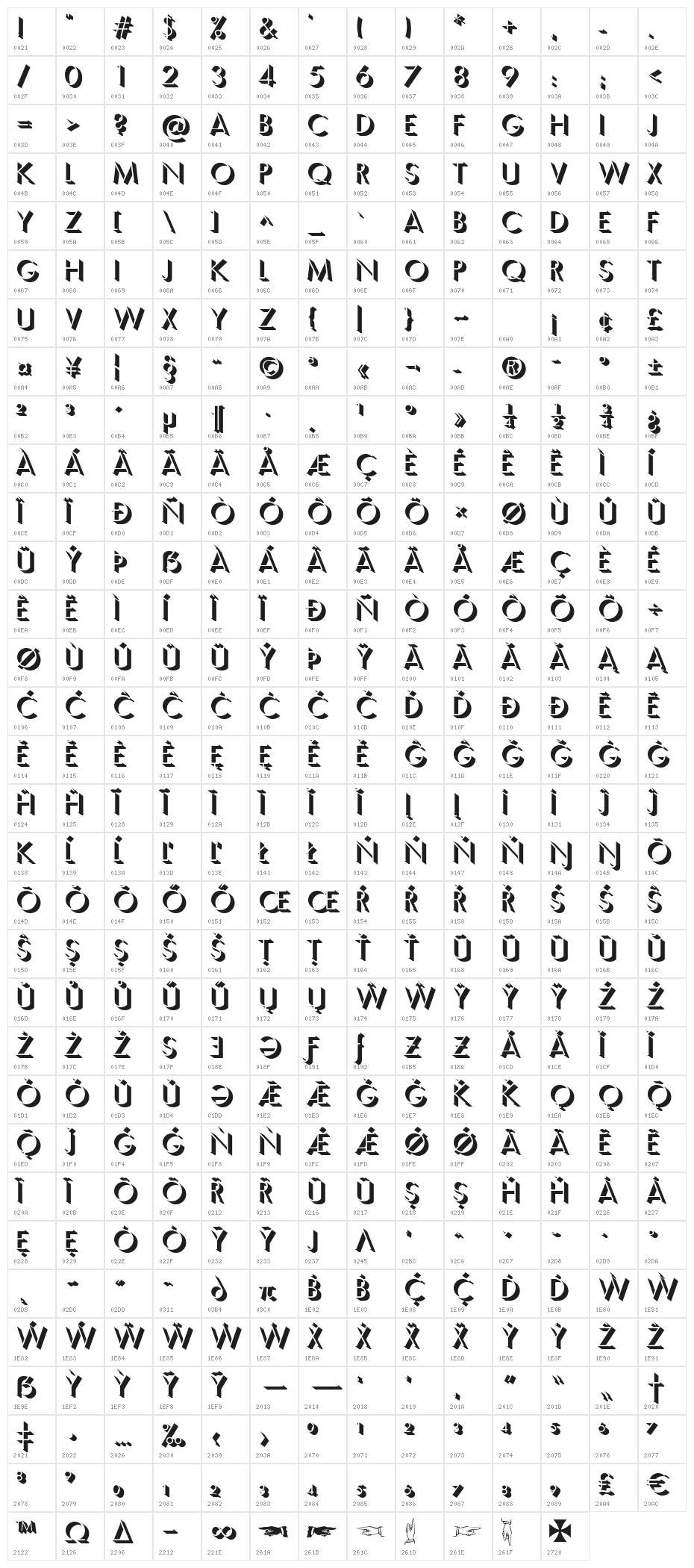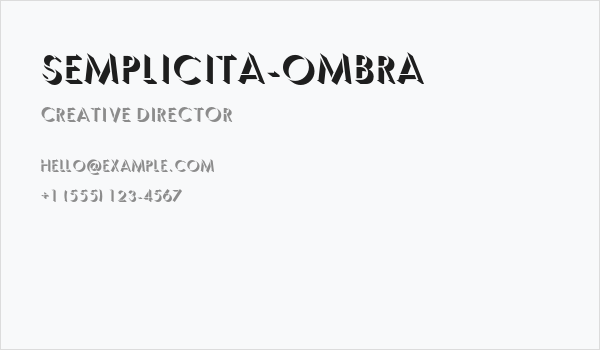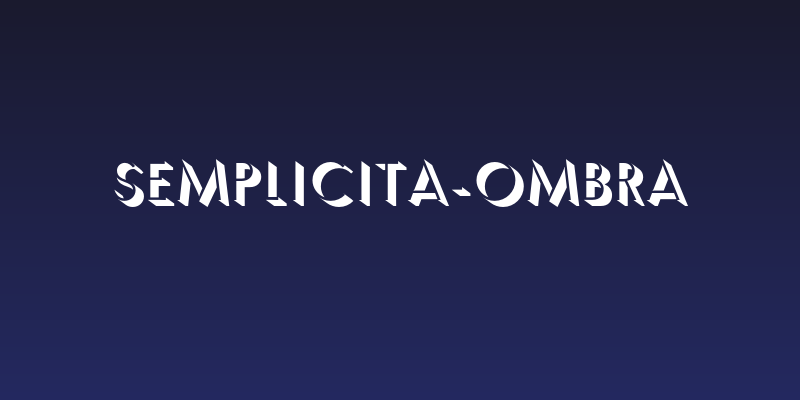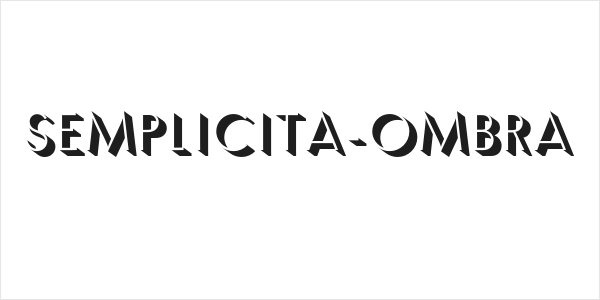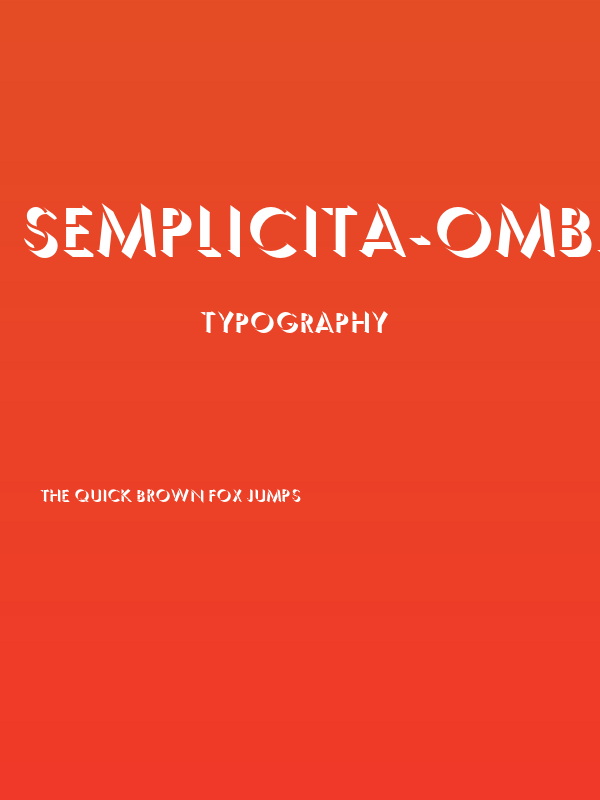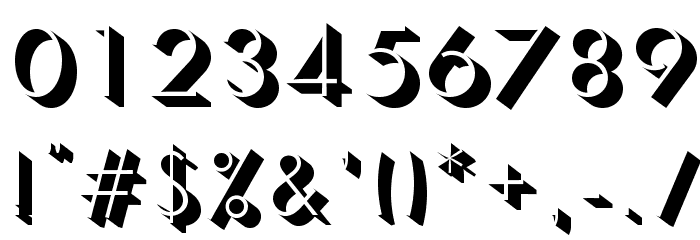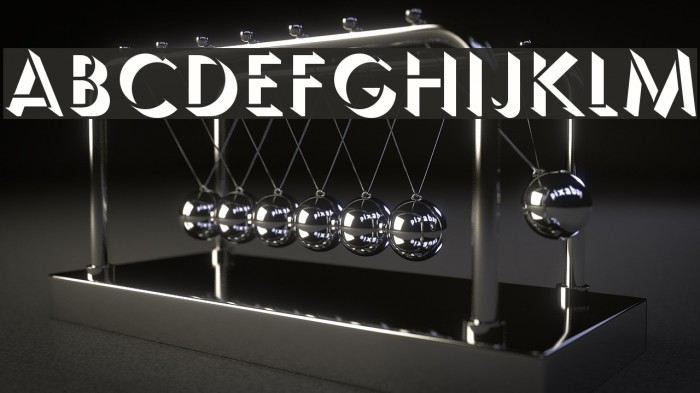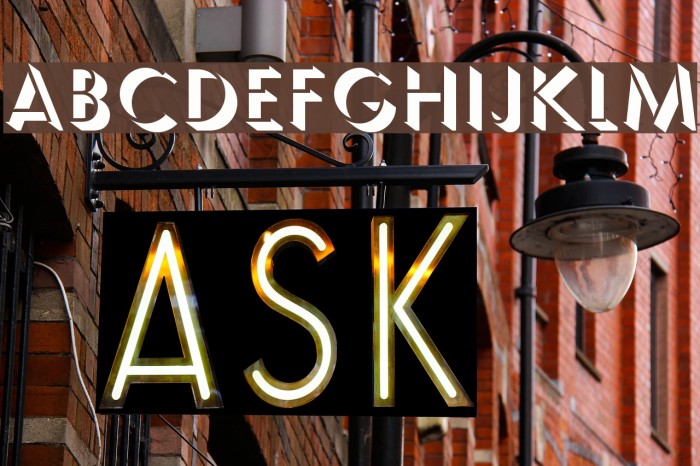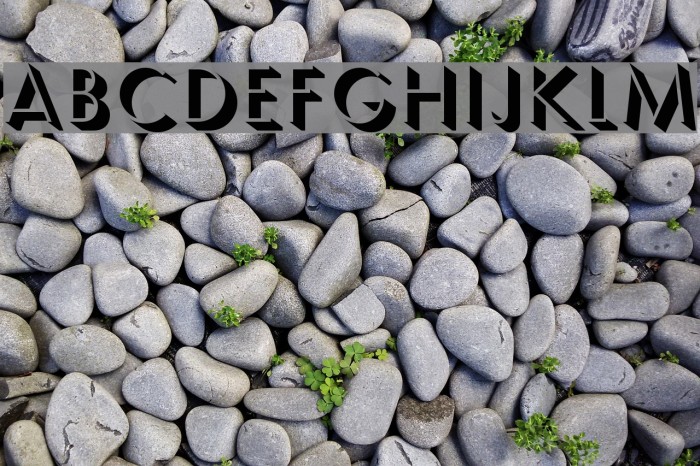
Semplicita-Ombra Font
Semplicita-Ombra Description
This font features a bold and striking design with a unique shadow effect that gives it a three-dimensional appearance. The characters are crafted with sharp, angular cuts that create a sense of movement and depth. The uppercase letters are particularly prominent, with a strong geometric influence that makes them stand out. The numbers and special characters maintain the same bold style, ensuring consistency across all elements. This font's distinctive style makes it ideal for projects that require a modern and eye-catching look.